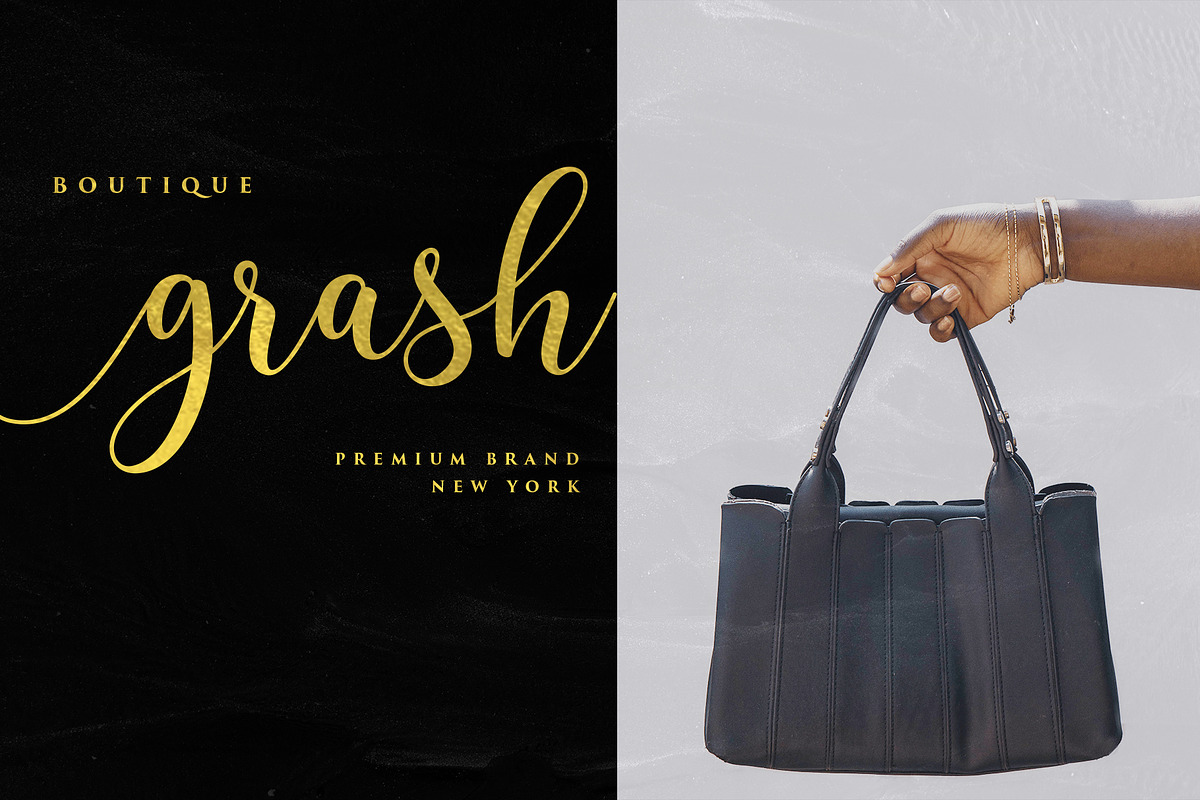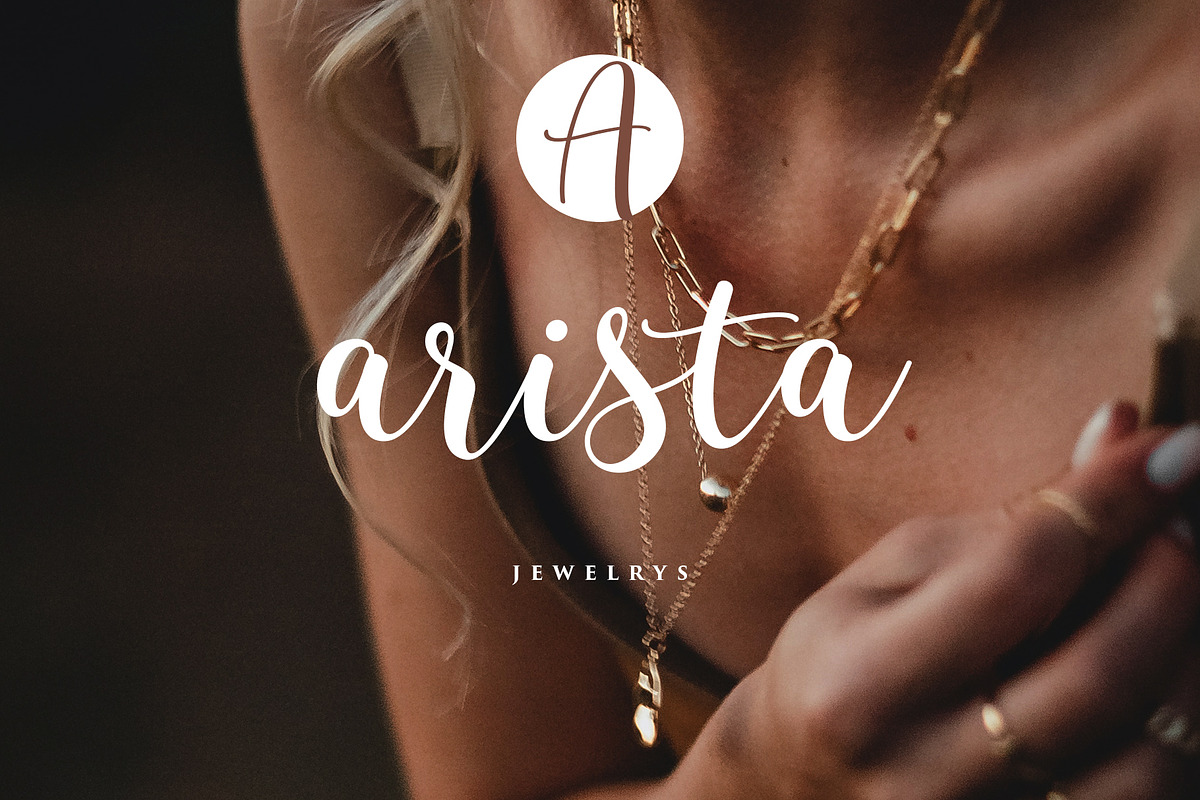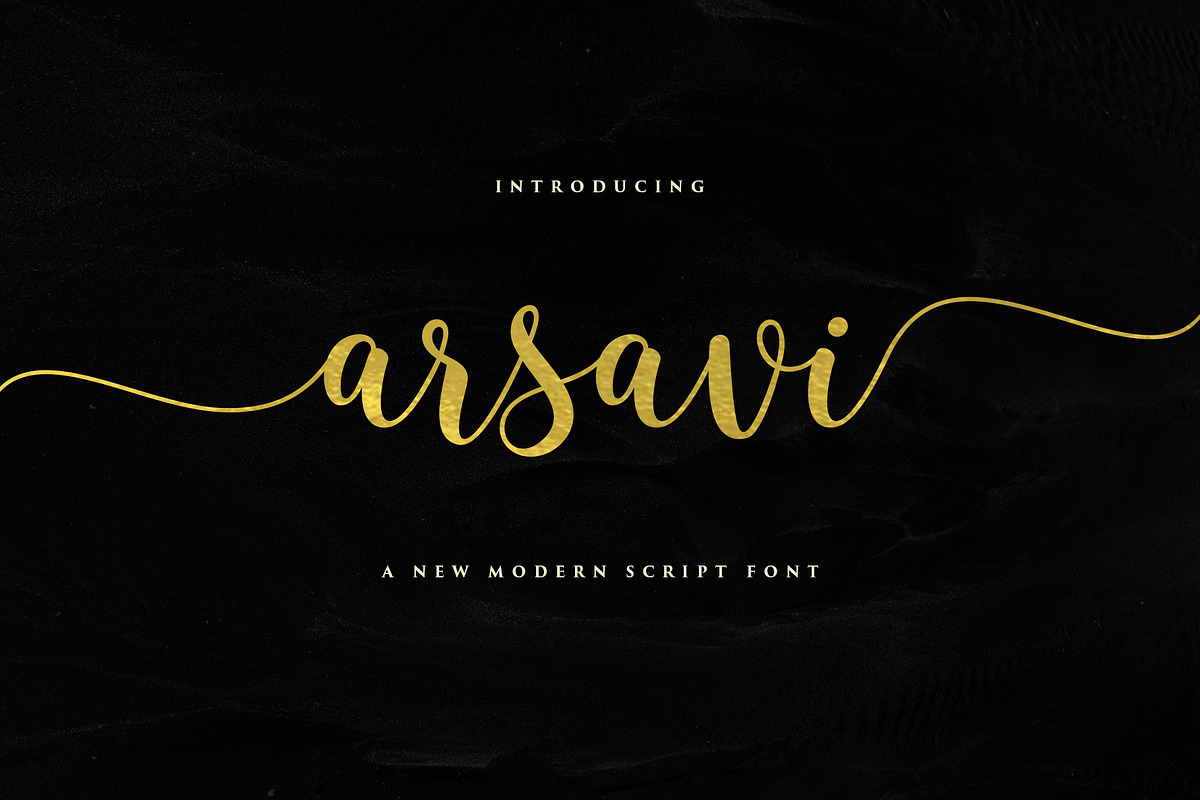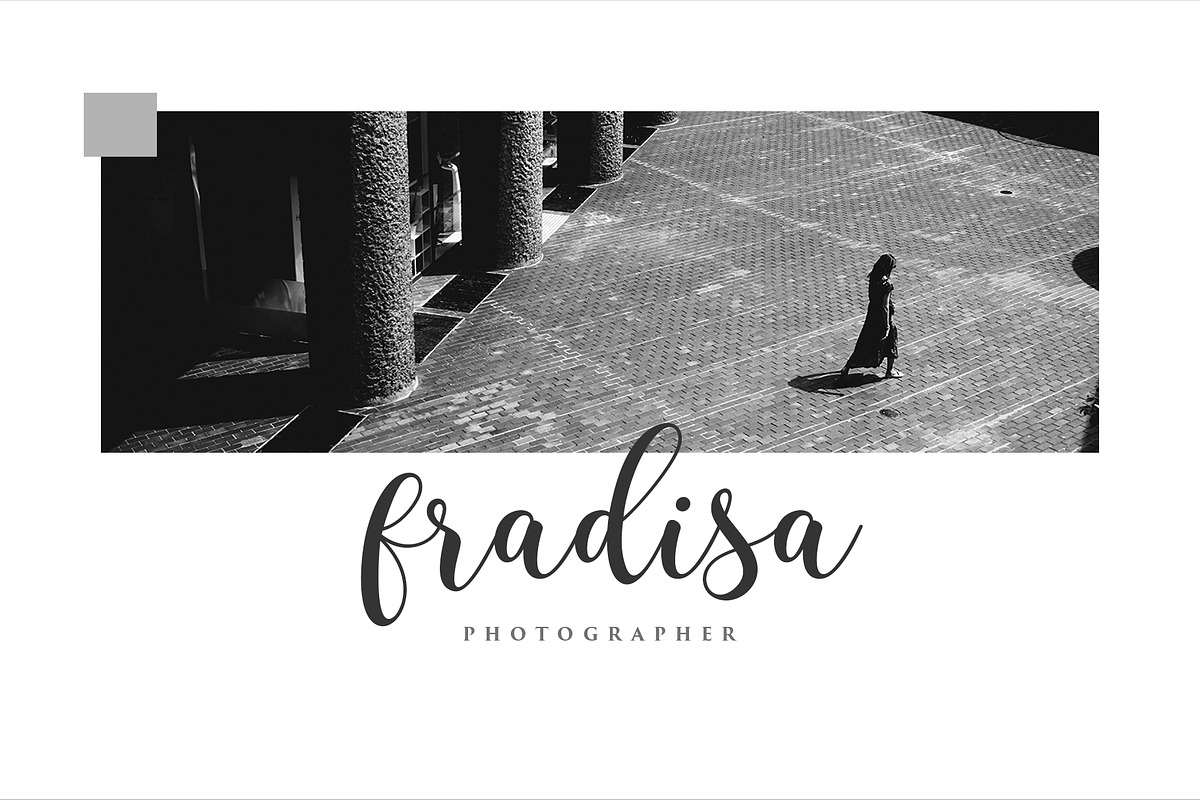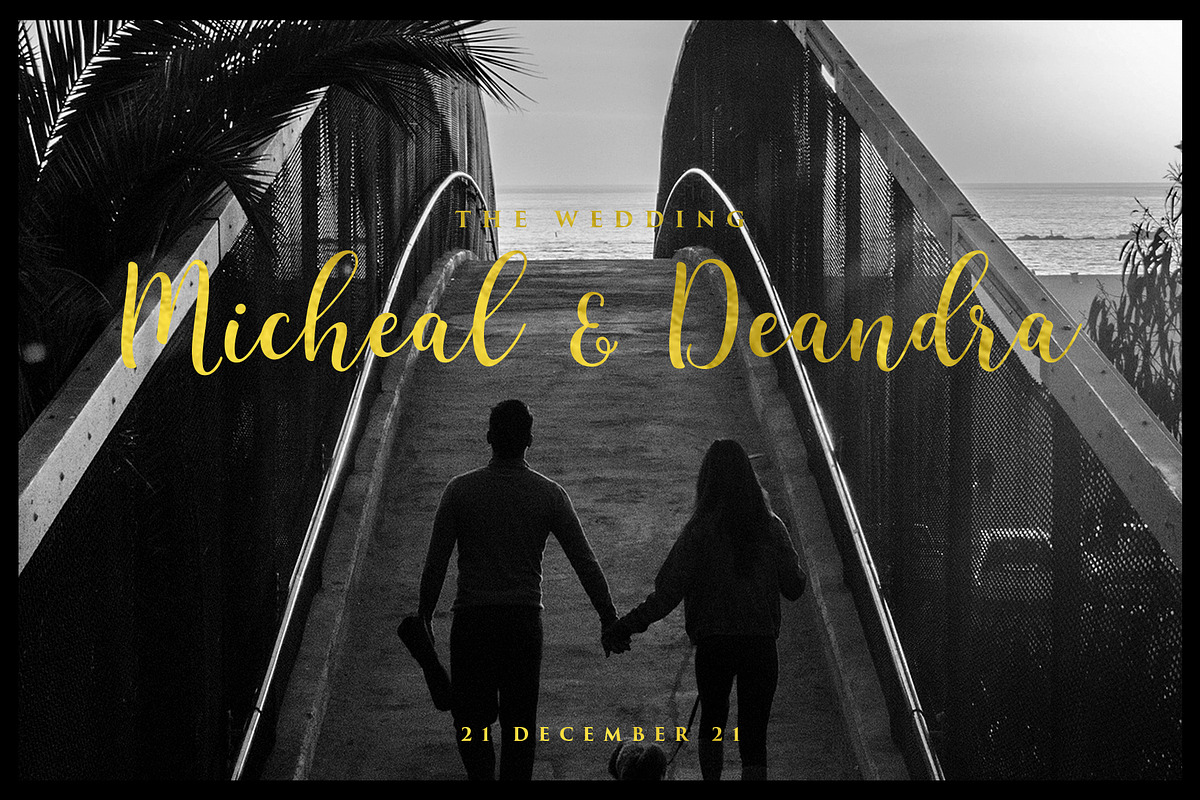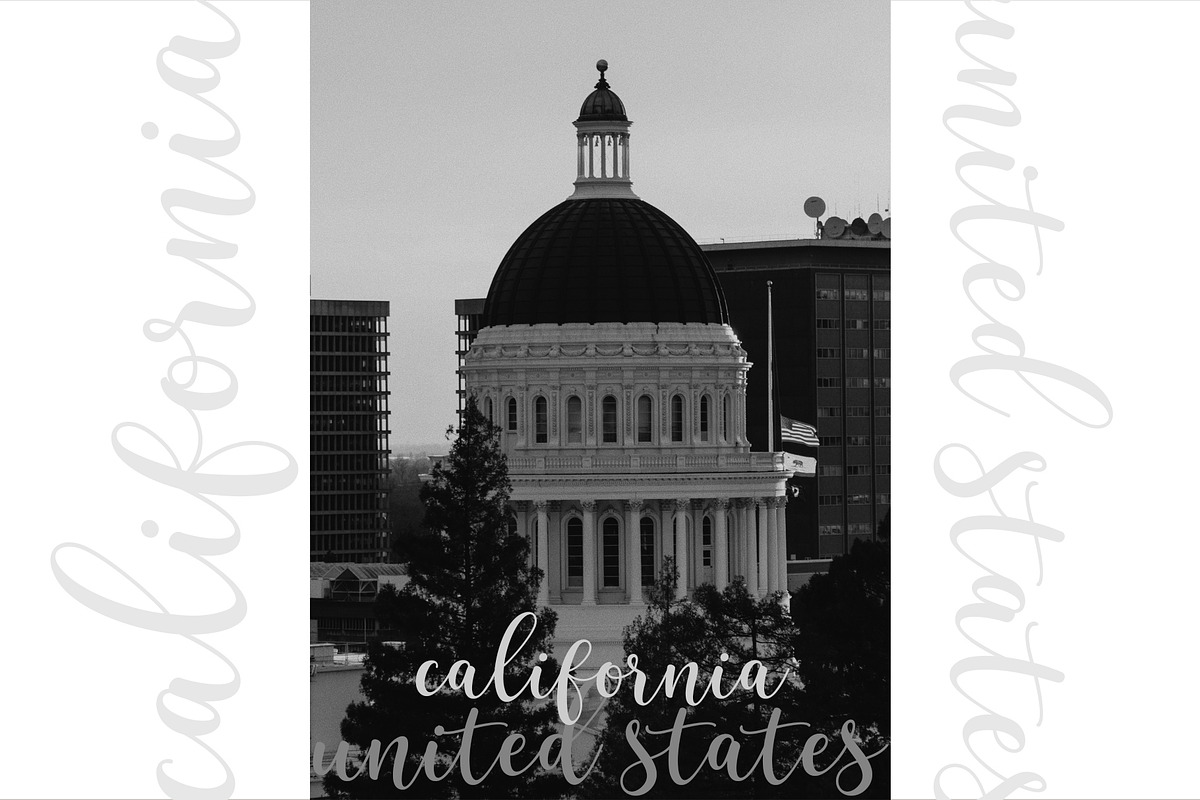
Arsavi Script
Arsavi is a modern font script. This font comes in a dancing and upright style that will find a luxurious style! This font will be suitable in use for logo's, branding projects, homeware designs, product packaging, mugs, quotes, posters, shopping bags, logo's, t-shirts, book covers, name card, invitation cards, greeting cards, and all your other lovely projects.